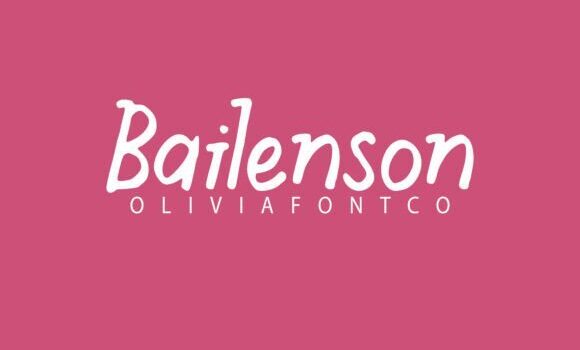
Bailenson Font – Free Download Introduction to Bailenson Font Bailenson font is an authentic handwritten font with a romantic touch. 📸 Preview Gallery 2 images 📌 Product Name Bailenson Font 👤 Author OliviaFontCo 📂 Category Explore ⬇️ Download Bailenson Font